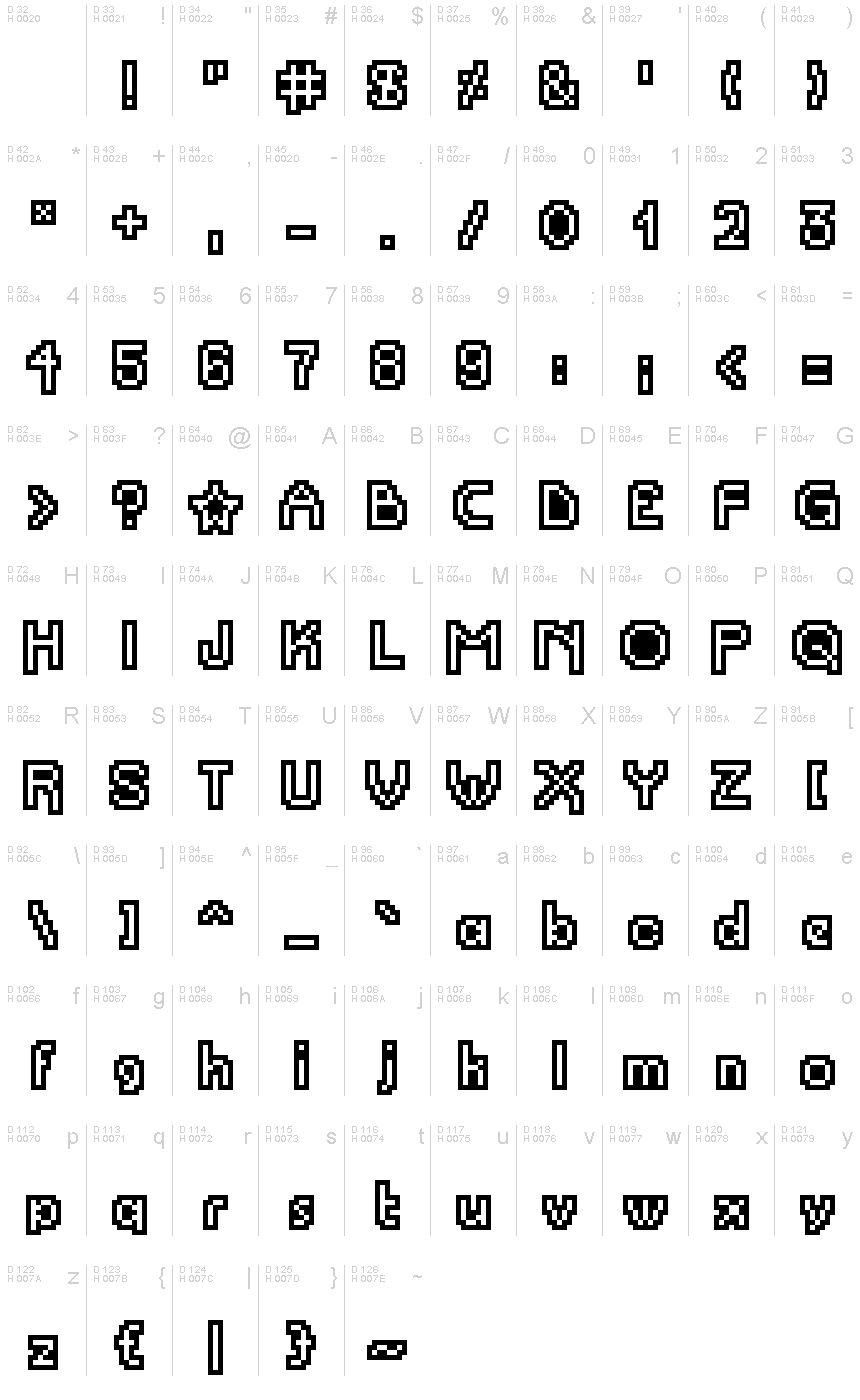
PropelRepelOutli
Propel Repel is a captivating bitmap font that exudes a retro-inspired, pixelated aesthetic. Designed by Hazel Abbiati, this unique typeface is a perfect fit for the Adventure Game Studios platform, best appreciated at a 10-pixel size. The distinct outline and alias variations add depth and versatility, allowing for creative layering and visual exploration. With its sharp, angular shapes and bold, expressive character, Propel Repel effortlessly bridges the gap between nostalgia and modern design sensibilities.
This font's striking visual appeal and adaptability make it an invaluable asset for game developers, graphic designers, and anyone seeking to infuse their projects with a captivating, retro-futuristic flair.